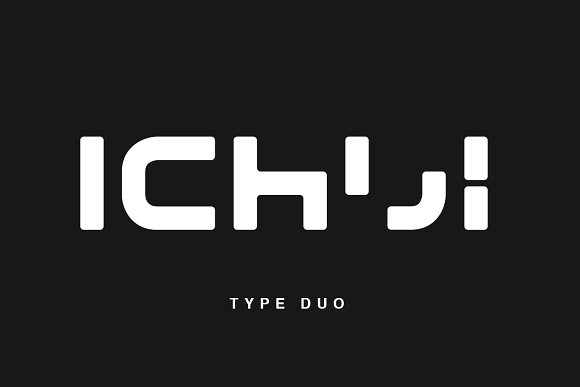
Embark on a typographic journey with Ichiji, the sans serif font duo that will leave an unforgettable mark on your designs. Crafted by the renowned Factory738 foundry, Ichiji bestows a touch of elegance and modernity upon every project it graces.
Indulge in the minimalist beauty of its clean lines and balanced proportions. Ichiji's understated charm effortlessly complements a wide array of design aesthetics, making it an essential addition to any creative's toolkit.
Unleash your imagination with Ichiji's versatile nature. From captivating headlines to engaging body copy, this font duo seamlessly adapts to your every need. Its clarity and readability ensure that your message shines through, leaving a lasting impression on your audience.
Whether you're a seasoned typographer or just starting your design adventure, Ichiji is the perfect companion to elevate your projects to new heights. Its simplicity and sophistication will inspire boundless creativity, allowing you to craft truly exceptional designs.
Experience the allure of Ichiji today and discover the transformative power of modern typography. Let its crisp lines and timeless appeal captivate your audience, leaving an indelible mark on their hearts and minds.